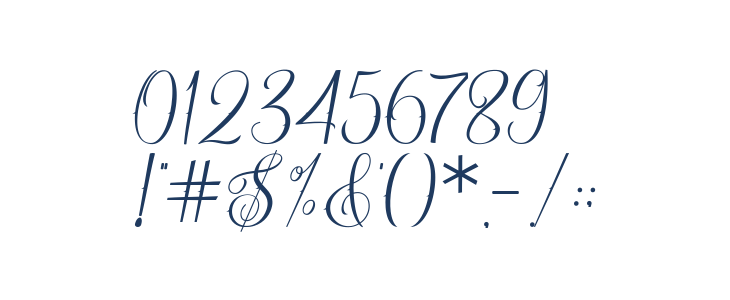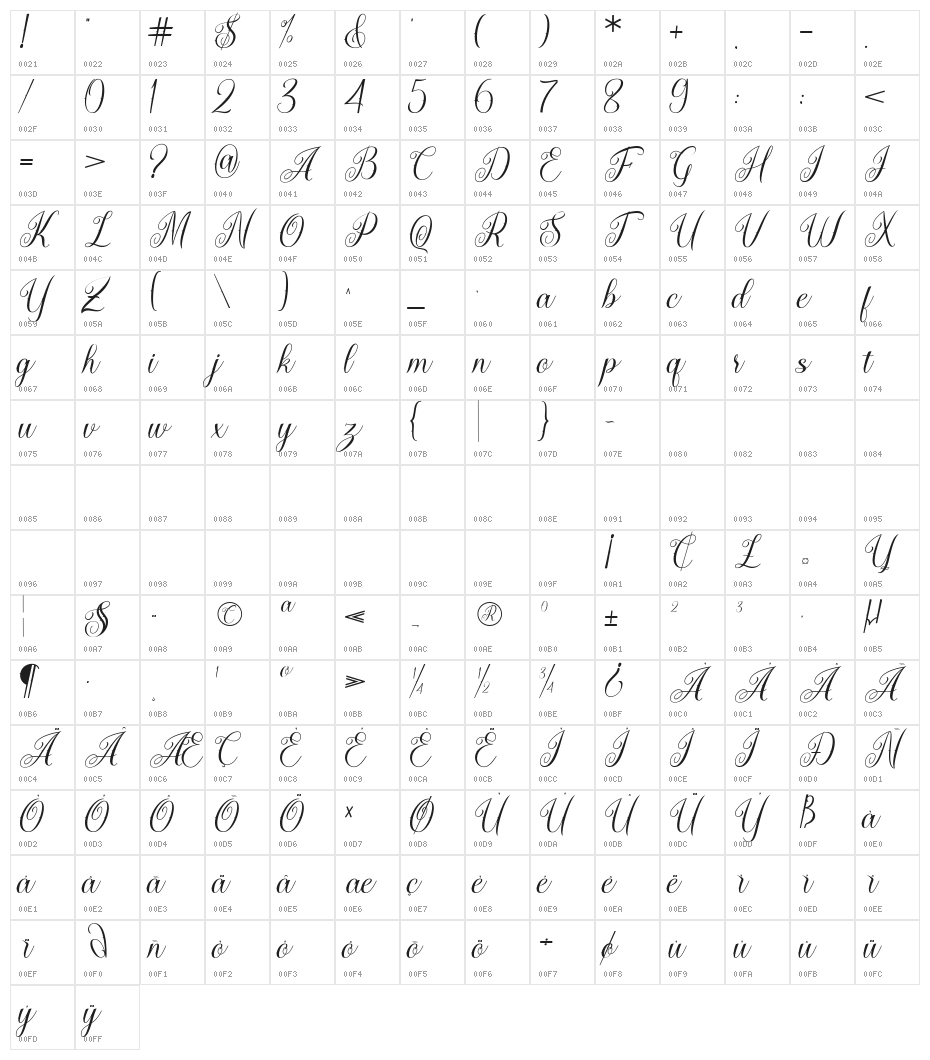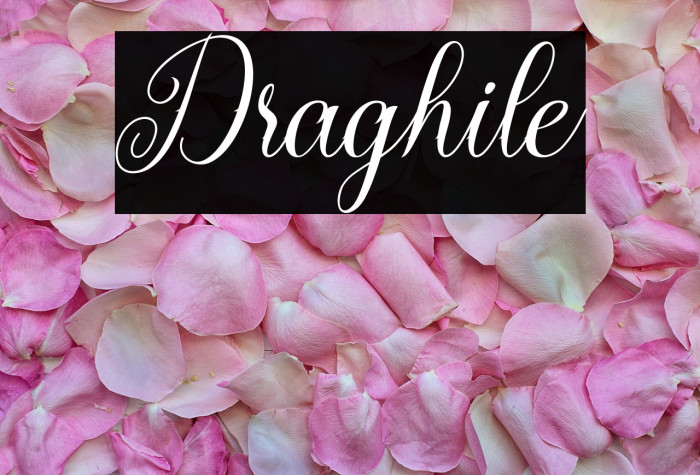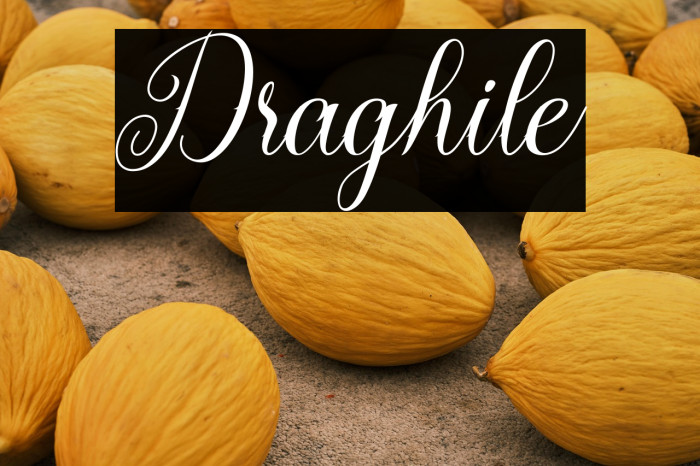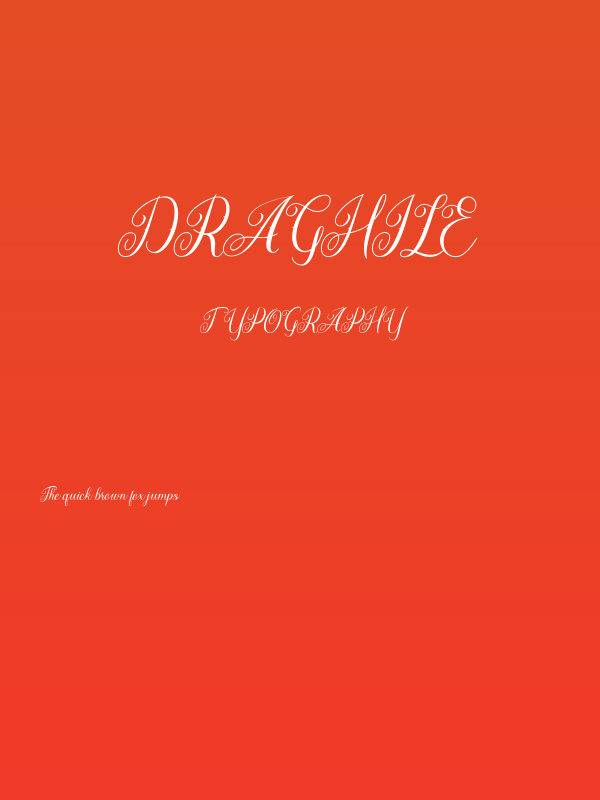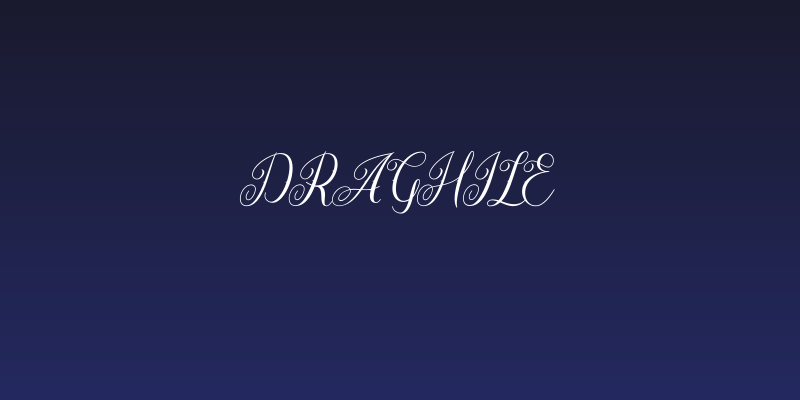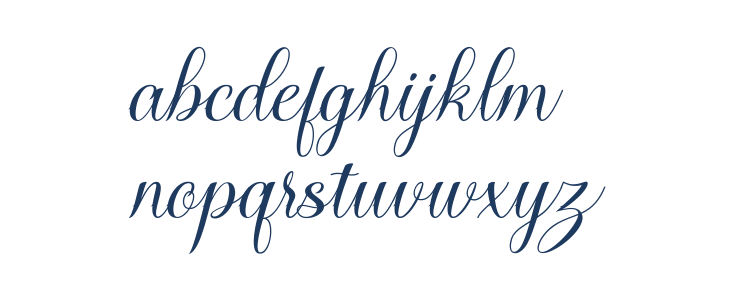
Draghile Font
Draghile Description
This elegant script font features a flowing, cursive style with intricate loops and flourishes. The uppercase letters are ornate, with decorative swashes that give them a sophisticated and artistic appearance. The lowercase letters maintain a smooth, connected flow, enhancing the font's readability while preserving its decorative nature. The numerals are stylishly curved, matching the overall aesthetic. Special characters are designed with similar attention to detail, making them blend seamlessly with the rest of the font. This font is ideal for projects that require a touch of elegance and sophistication.
Overall StyleElegant, Decorative
Use CaseLogos, Invitations, Decorative text
Proposed ProjectsIdeal for wedding invitations, elegant branding, greeting cards, and high-end product packaging.